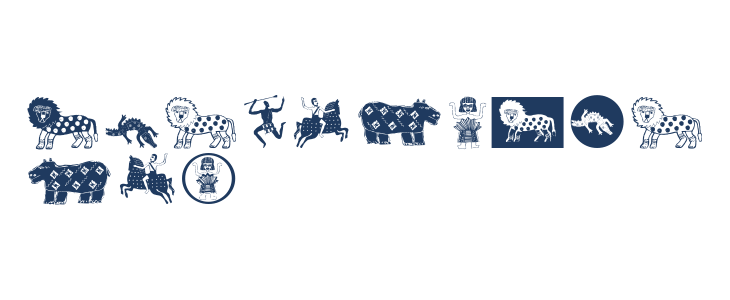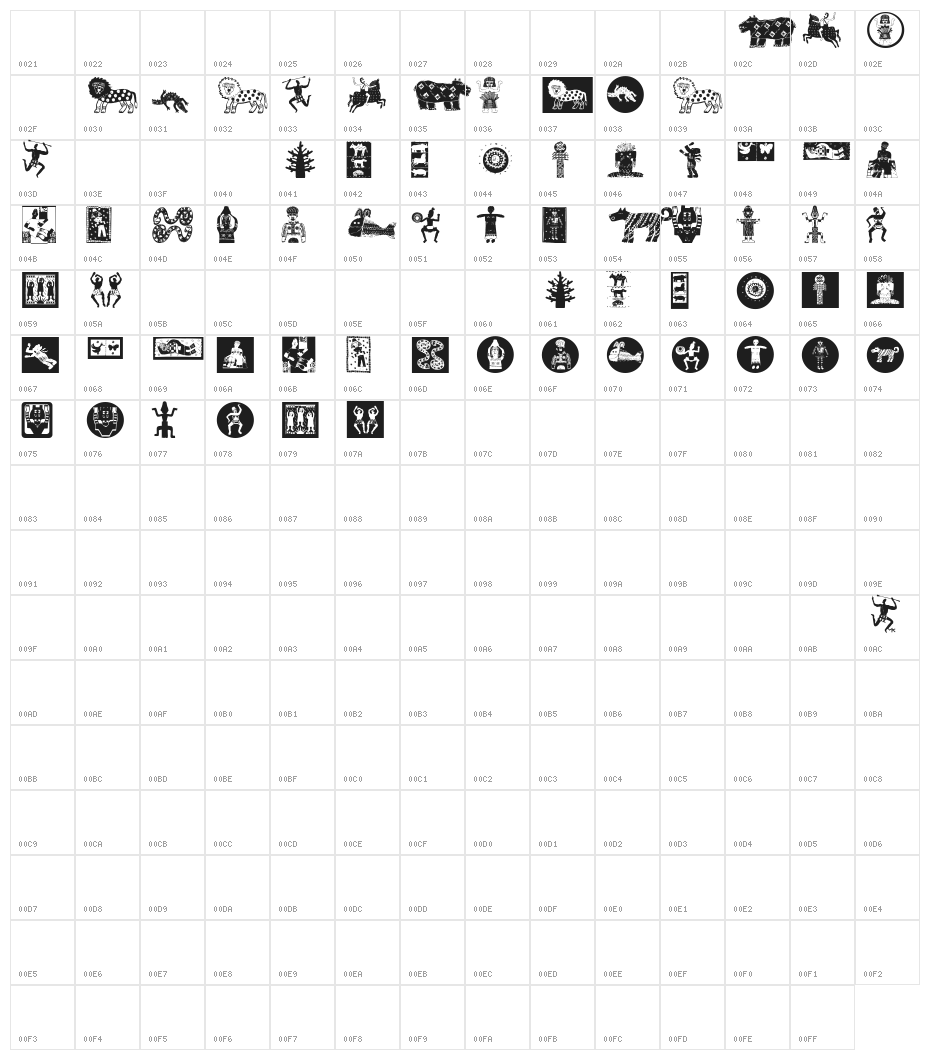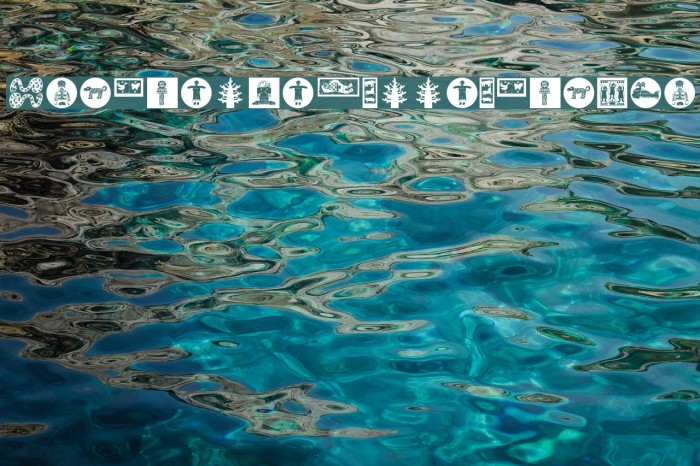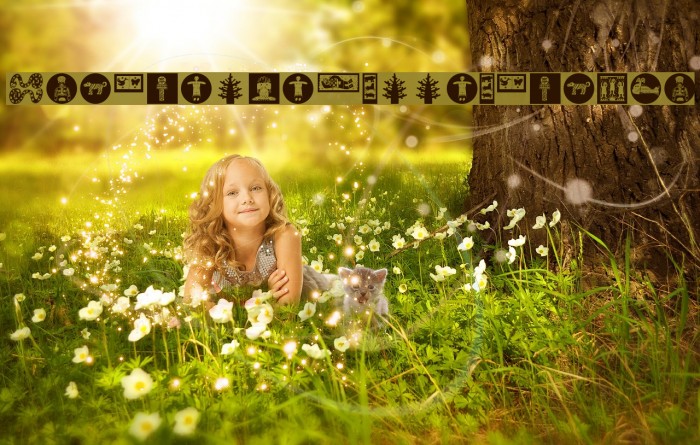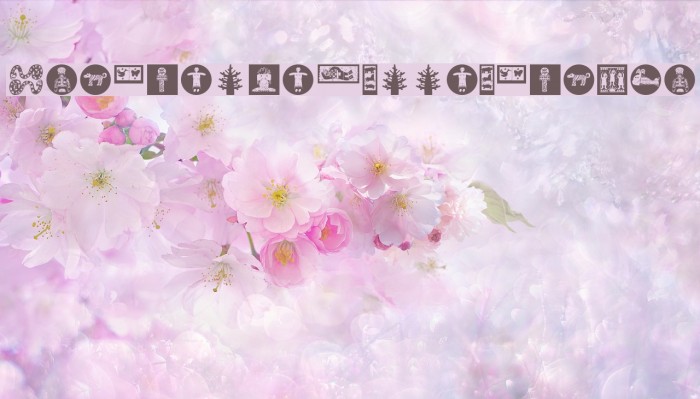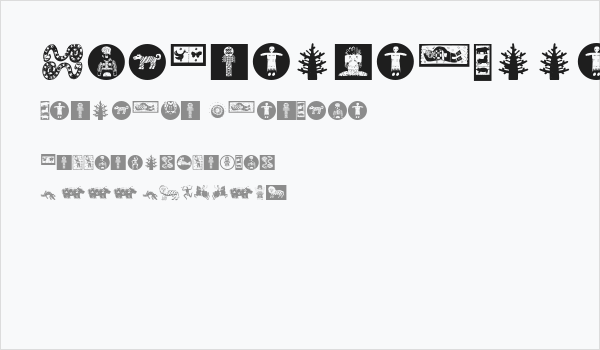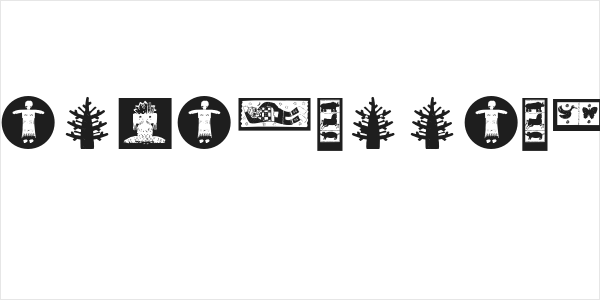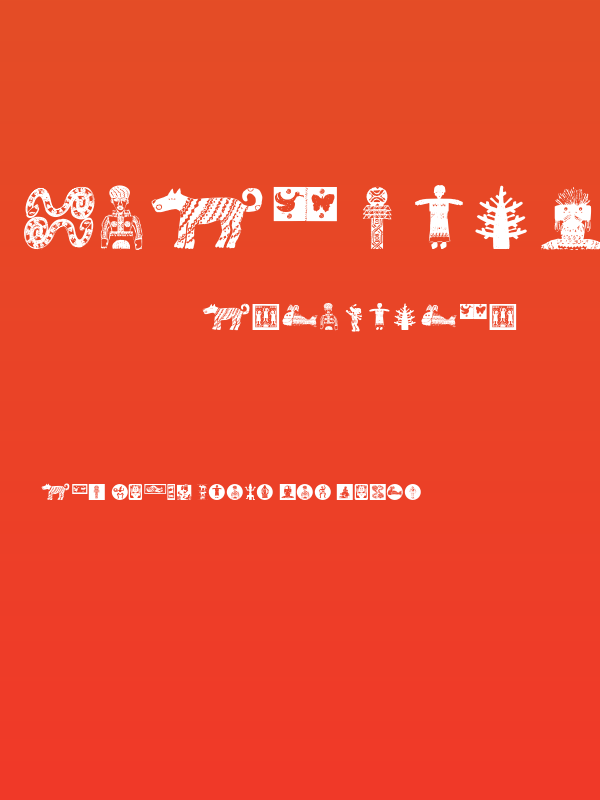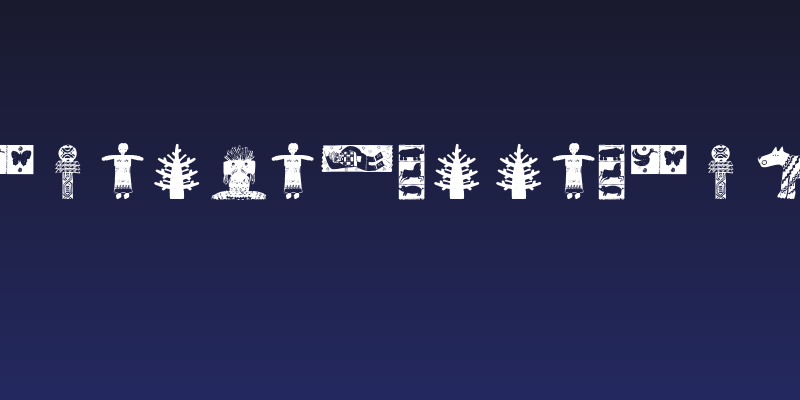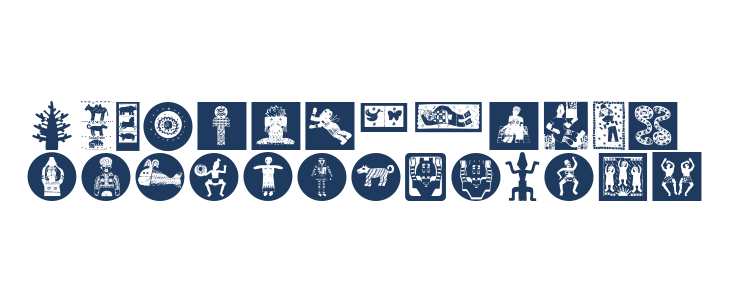
MotherAfricaArchetypo Font
MotherAfricaArchetypo Description
A highly decorative and illustrative font composed of African-inspired archetypal symbols, figures, animals, and geometric motifs, rendered in bold black-and-white with intricate detailing and strong visual storytelling.
| Overall Style | Decorative, Ethnic, Illustrative |
| Use Case | Logos, Posters, Artworks, Thematic Headlines |
| Proposed Projects | Cultural posters, educational materials, branding for African-themed events, art projects, book covers, museum displays. |